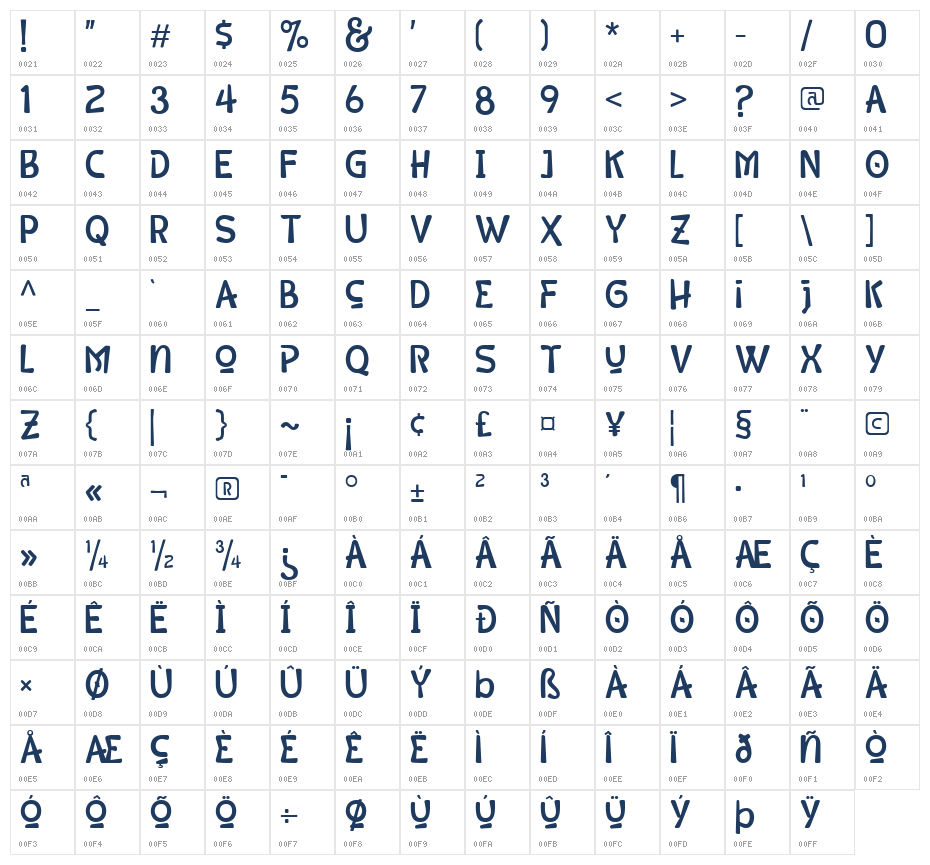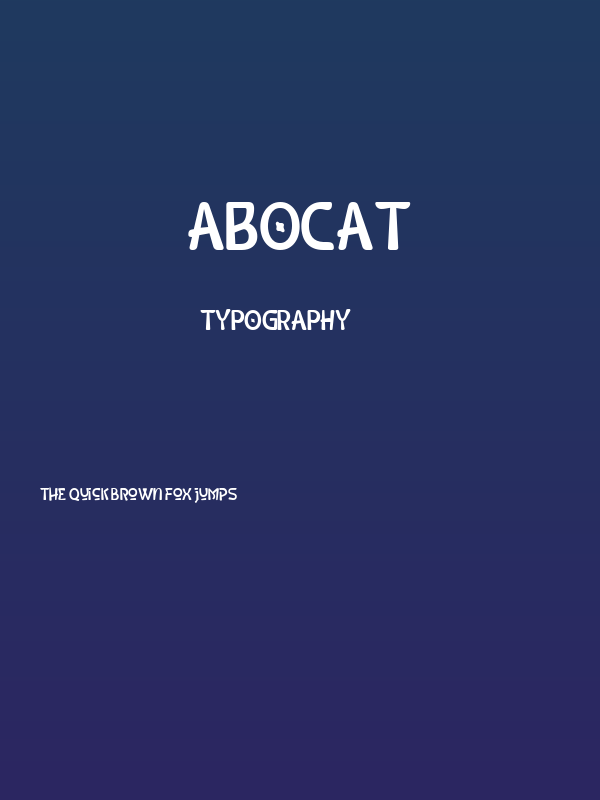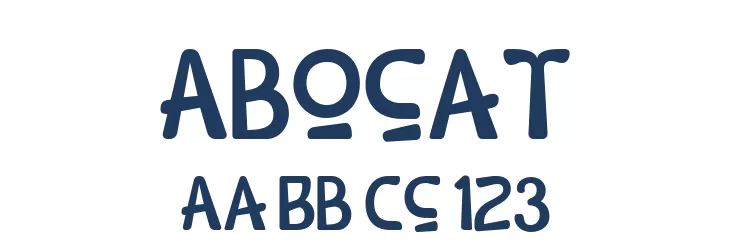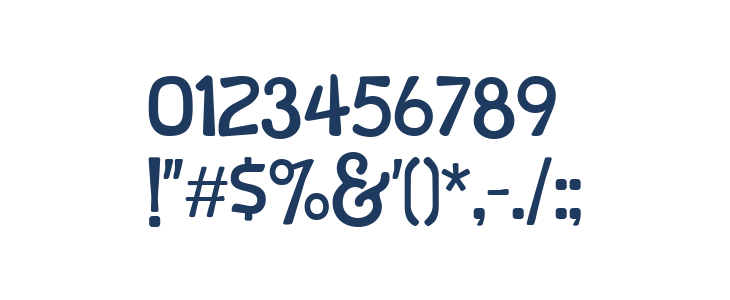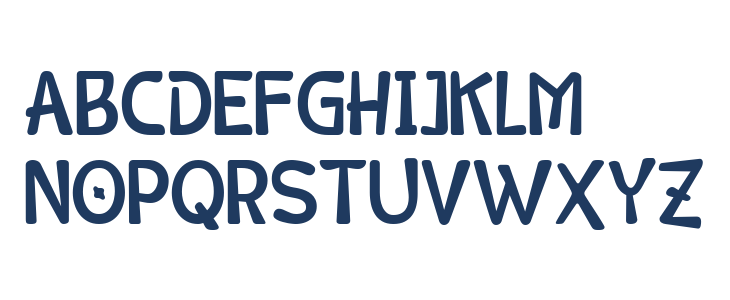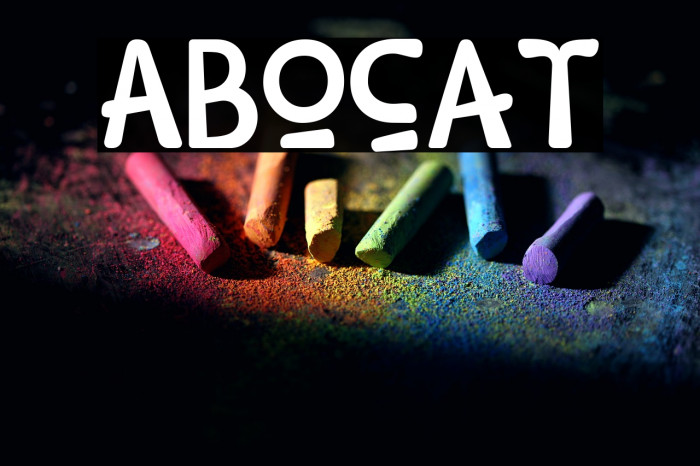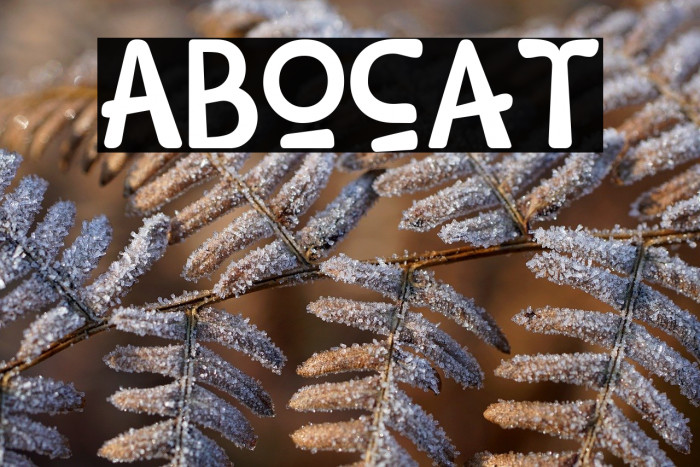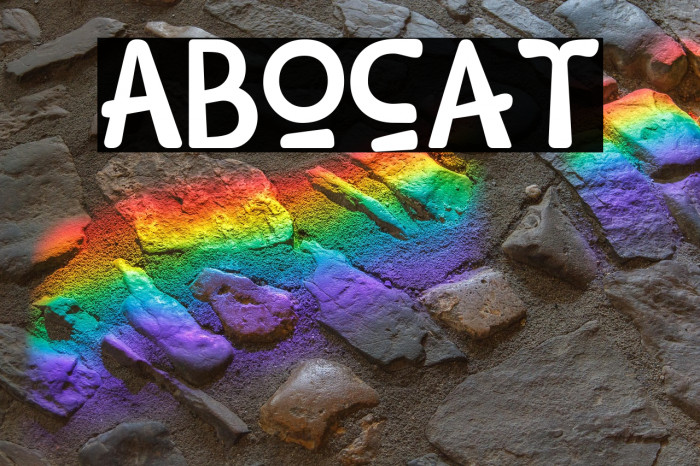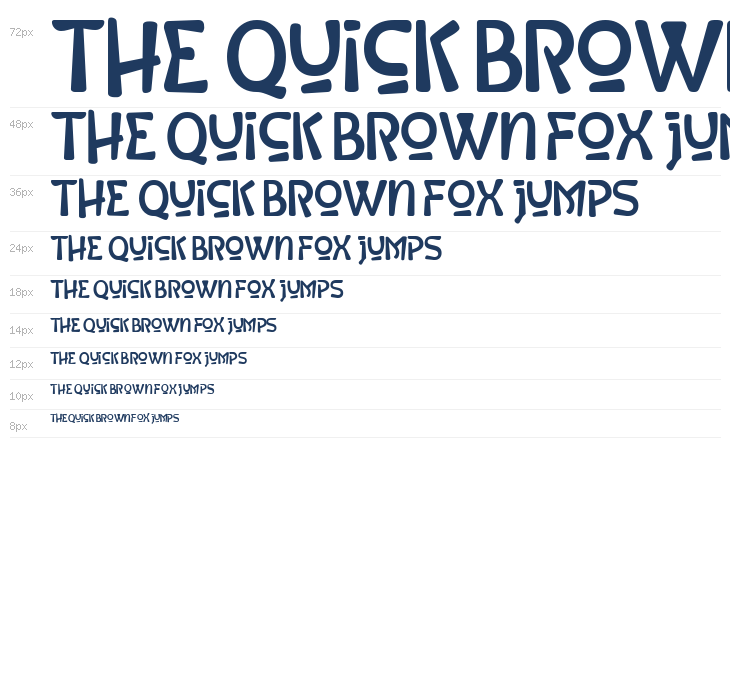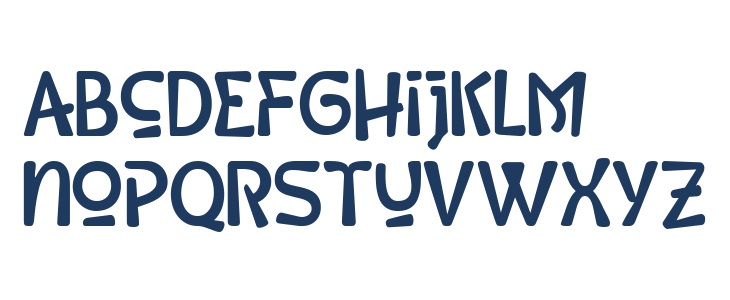
Abocat Font
Abocat Description
Playful, rounded, handwritten style font with irregular strokes and a casual appearance.
| Overall Style | Casual, Playful, Handwritten |
| Use Case | Headlines, Children's materials, Invitations, Posters |